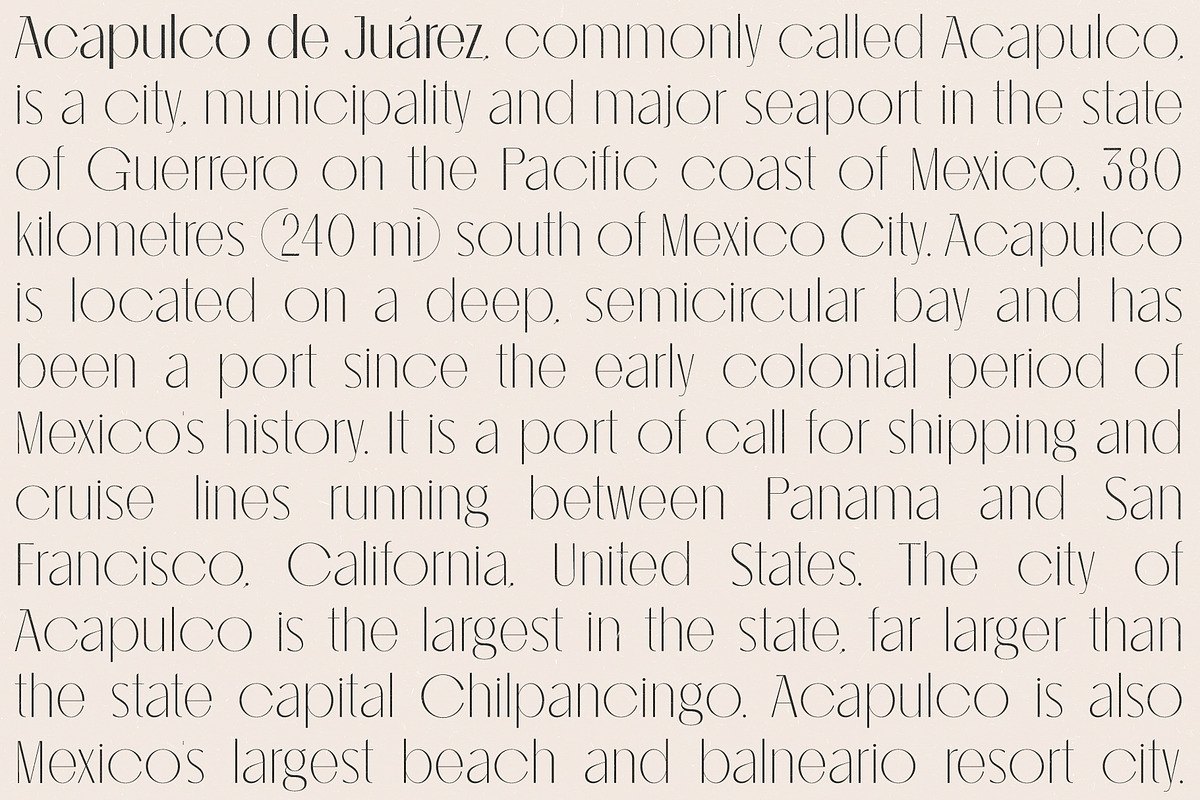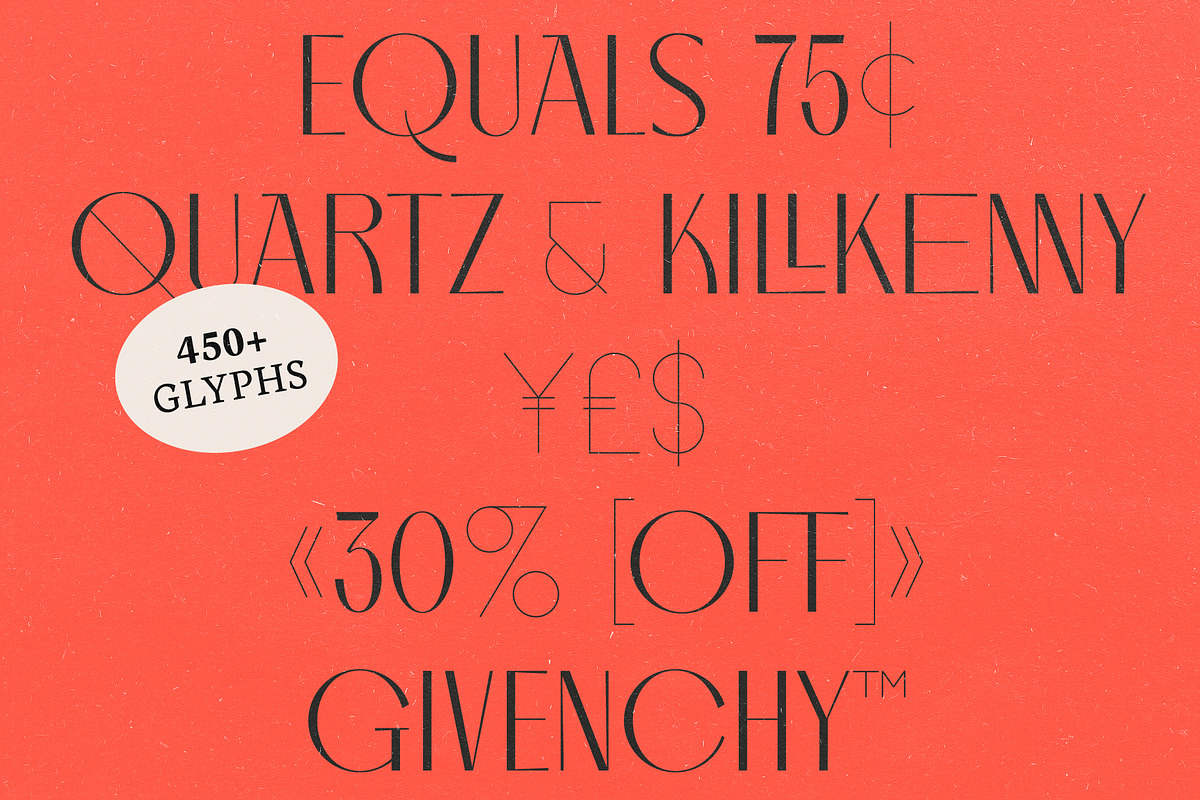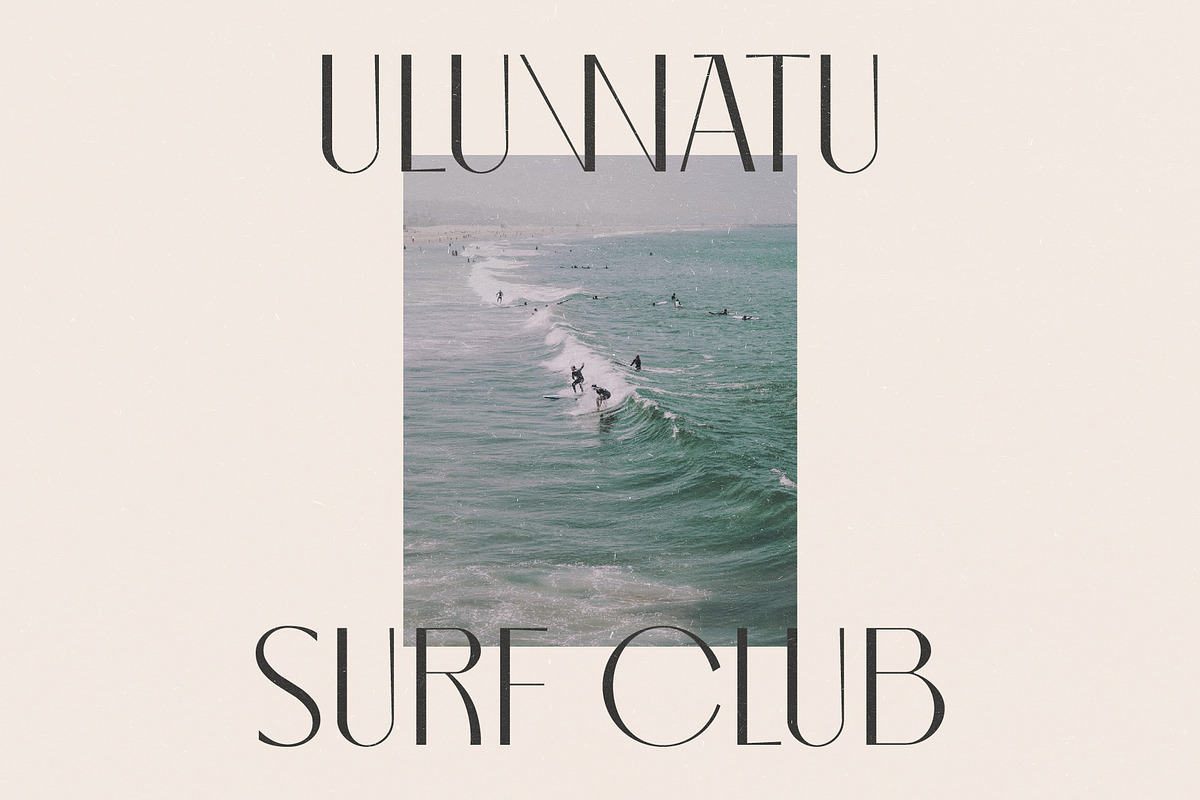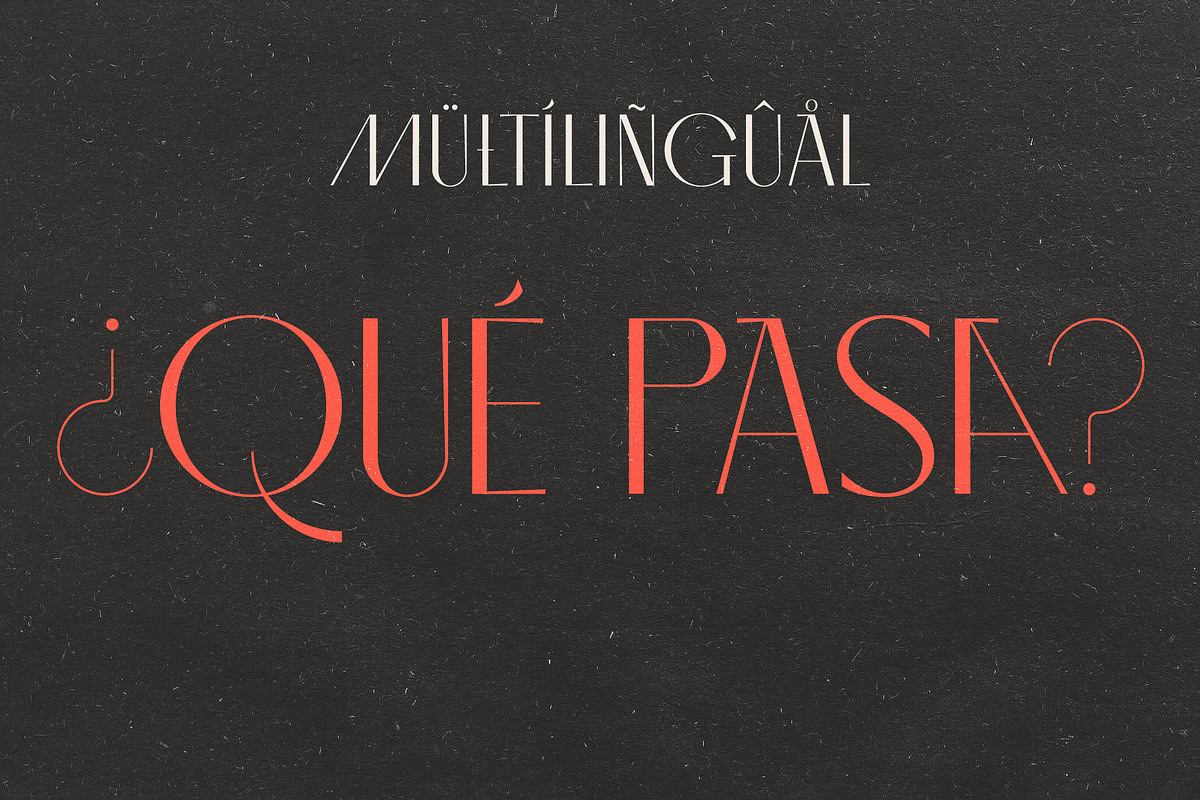
Acapulco - Stylish Sophisticated Font
Introducing our new typeface, Acapulco - A contemporary and sophisticated sans serif font that comes with two weights (Regular & Bold), uppercase & lowercase and full of ligatures and alternate characters perfect for creating variety in your designs.
This is a sans serif font that we recommend using in the following types of work; magazines (titles and layouts), logos and branding, invitations, quotes, blog headers, posters, advertising and body copy.
Language Support: Afrikaans, Albanian, Catalan, Danish, Dutch, English, French, German, Italian Norwegian, Portuguese, Spanish, Swedish and Zulu.
Uppercase and lowercase glyphs
Two weights (Regular & Bold)
Unique ligatures glyphs
Many alternate characters